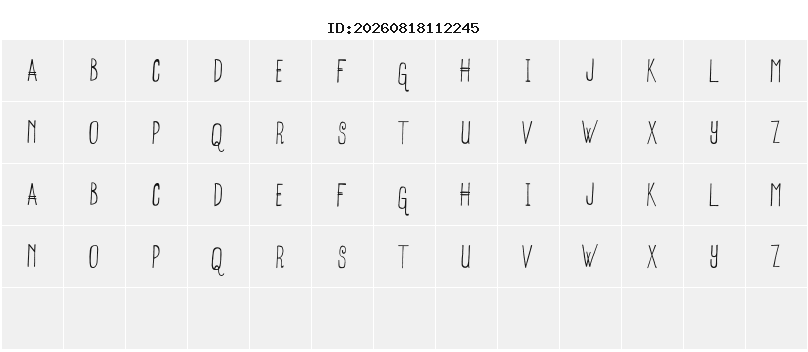
Snow Fox Preview
• Font Name: Snow Fox
• Designer: =^_^=
• Manufacturer: Skyhaven
About Snow Fox.otf
Snow Fox.otf is a modern, elegant sans-serif font designed for ultimate readability and visual harmony. Perfect for branding, headlines, web design, and print materials.